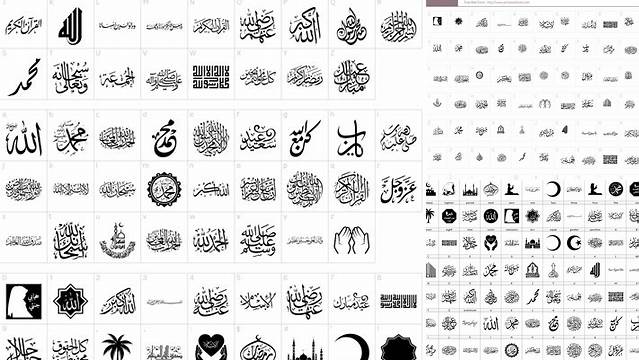
Free Islamic Symbol Fonts: Downloads & How To Use Them
Are you looking to add a touch of Islamic artistry to your designs? Maybe you're working on a project that requires specific Islamic symbols, or perhaps you're just captivated by the beauty of Arabic calligraphy and Islamic geometric patterns. Whatever your reason, finding the right Islamic symbol fonts can be a game-changer. In this comprehensive guide, we'll dive into the world of free Islamic symbol fonts, exploring where to find them, how to use them effectively, and the significance behind some of these beautiful symbols. So, let's get started, guys!
What are Islamic Symbol Fonts?
Islamic symbol fonts are essentially fonts that include a variety of Islamic symbols, calligraphy, and geometric patterns instead of the usual letters, numbers, and punctuation marks. These fonts are a treasure trove for designers, artists, and anyone looking to incorporate Islamic art into their work. You can use them in graphic design projects, web design, presentations, educational materials, and even personal projects like invitations or greeting cards. The beauty of these fonts lies in their ability to convey cultural and religious meanings through visually appealing symbols.
Islamic symbol fonts often incorporate traditional Islamic calligraphy styles, such as Kufic, Naskh, Thuluth, and Diwani. Each style has its own unique characteristics and aesthetic appeal. For instance, Kufic is known for its angular and geometric forms, while Thuluth is characterized by its elegant and flowing curves. These calligraphic styles have been used for centuries in religious texts, architectural decorations, and various art forms across the Islamic world. Beyond calligraphy, these fonts may also include common Islamic symbols like the star and crescent, the Rub el Hizb (a symbol used to mark sections in the Quran), floral and geometric patterns (arabesques), and other culturally significant symbols.
When you're working with Islamic symbol fonts, it's essential to understand the cultural context and significance of the symbols you're using. This will help you use them appropriately and respectfully. For example, some symbols are closely associated with religious practices and should be used with reverence. Additionally, consider the aesthetic impact of the font on your overall design. Choose fonts that complement your design's theme and style, ensuring that the symbols enhance rather than detract from your message. By using these fonts thoughtfully and with an understanding of their background, you can create designs that are both beautiful and meaningful.
Where to Find Free Islamic Symbol Fonts
- Individual Designer Websites: Many talented designers have their own websites or portfolios where they offer free fonts as a way to showcase their work. It's worth exploring individual designer websites, especially those who specialize in Arabic calligraphy or Islamic art. You might find unique and beautifully crafted Islamic symbol fonts that you won't find anywhere else. Supporting individual designers by using their free fonts can also encourage them to continue creating and sharing their work with the community. Be sure to check their licensing terms and give them credit when using their fonts in your projects.
Popular Islamic Symbols and Their Meanings
When working with Islamic symbol fonts, it's beneficial to understand the meanings behind the symbols you're using. This not only ensures respectful usage but also adds depth and meaning to your designs. Here are some popular Islamic symbols and their significance:
Islamic symbol fonts are a fantastic resource for anyone looking to add a touch of Islamic artistry to their designs. With a wealth of free options available online, there's no limit to what you can create. Just remember to use these symbols respectfully, understand their meanings, and consider the context of your designs. By following the tips and ideas we've discussed, you can create stunning visuals that are both beautiful and meaningful. So go ahead, explore the world of Islamic symbol fonts and let your creativity shine! Guys, happy designing!